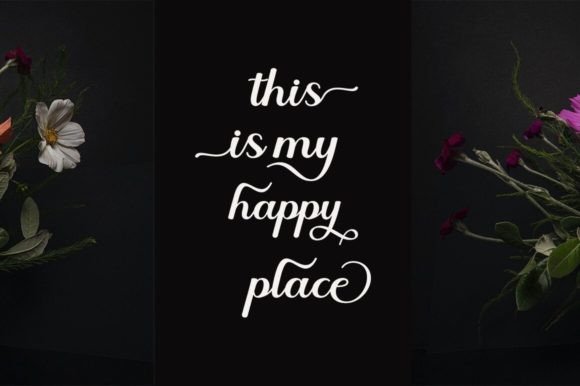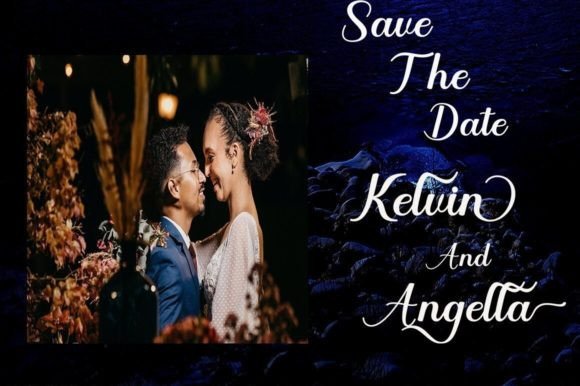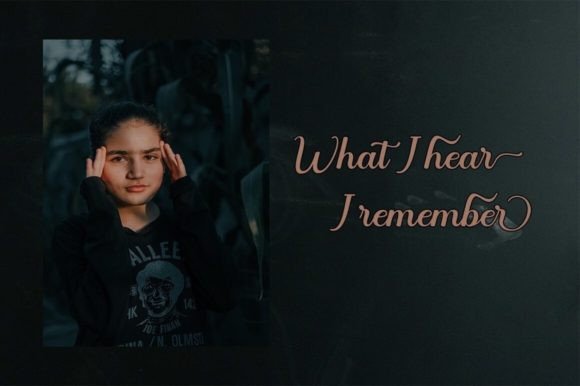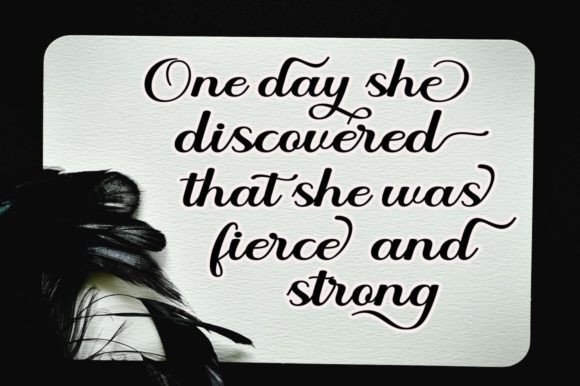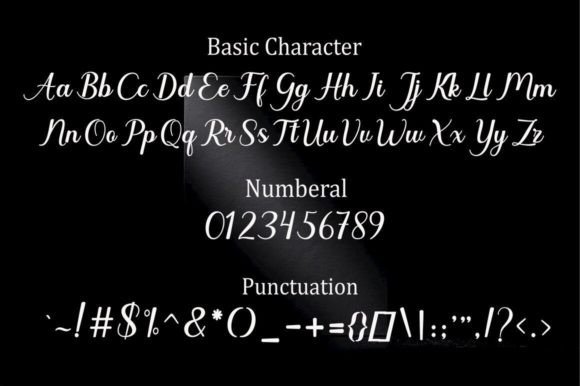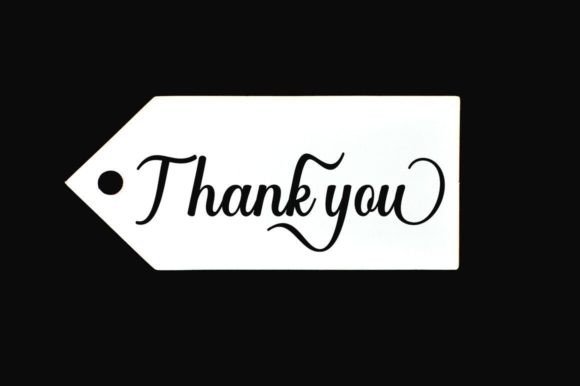
Bridgestone Font: Elevate Your Designs with Modern Calligraphy
In the world of typography, few fonts have made a lasting impact like Bridgestone script. This modern calligraphy design has taken the design community by storm with its casual yet beautiful appearance, complete with elegant swashes. Whether you’re a seasoned designer or a crafty DIY enthusiast, Bridgestone font is an excellent addition to your toolkit. In this article, we’ll dive into the features, uses, and benefits of Bridgestone font, and explore how it can elevate your designs to the next level.
What is Bridgestone Font?
Bridgestone script is a modern calligraphy font that boasts a fresh and stylish look. Its Regular style is perfect for a wide range of applications, from logos and product packaging to wedding invitations and branding materials. The font’s casual, hand-written feel makes it an excellent choice for designers looking to add a touch of personality to their work.
Key Features of Bridgestone Font
- Modern Calligraphy Design: Bridgestone script features a modern calligraphy design that is both elegant and sophisticated.
- Regular Style: The font’s Regular style makes it versatile and easy to use for various design projects.
- Elegant Swashes: The font includes beautiful swashes that add a touch of elegance and sophistication to any design.
- Casual and Beautiful: Bridgestone script has a casual yet beautiful appearance that makes it perfect for a wide range of applications.
Uses of Bridgestone Font
Bridgestone font is an incredibly versatile typeface that can be used for various purposes, including:
- Logos: Create stunning logos that make a lasting impression with Bridgestone font.
- Product Packaging: Add a touch of elegance to your product packaging with this beautiful font.
- Wedding Invitations: Make your wedding invitations truly special with Bridgestone script.
- Branding: Establish a strong brand identity with this modern calligraphy font.
- Headlines: Create eye-catching headlines that grab attention with Bridgestone font.
- Signage: Use Bridgestone script for signage that makes a lasting impression.
- Labels: Add a touch of elegance to your labels with this beautiful font.
- Signatures: Create stunning signatures that reflect your personality with Bridgestone script.
- Book Covers: Make your book covers truly special with this modern calligraphy font.
- Posters: Create eye-catching posters that grab attention with Bridgestone font.
- Quotes: Add a touch of elegance to your quotes with this beautiful font.
Benefits of Using Bridgestone Font
So, why should you choose Bridgestone font for your design projects? Here are just a few benefits:
- Unique and Creative: Bridgestone script is a unique and creative font that will set your designs apart from the rest.
- Elegant and Sophisticated: The font’s elegant and sophisticated appearance makes it perfect for high-end designs.
- Versatile: Bridgestone font is incredibly versatile and can be used for a wide range of applications.
In conclusion, Bridgestone font is an excellent choice for designers and crafters looking to add a touch of elegance and sophistication to their work. With its modern calligraphy design, elegant swashes, and versatile uses, this font is sure to become a staple in your design toolkit. Whether you’re creating logos, product packaging, wedding invitations, or any other design project, Bridgestone script is the perfect choice. So why wait? Download Bridgestone font today and take your designs to the next level!